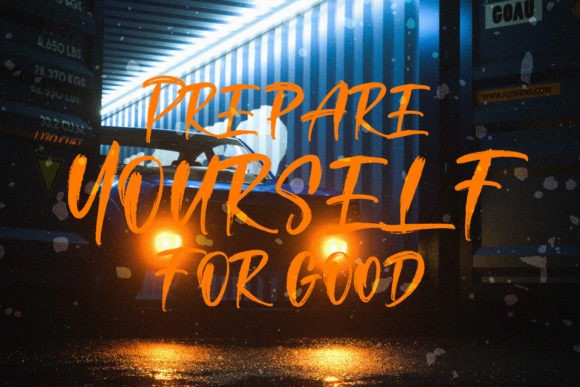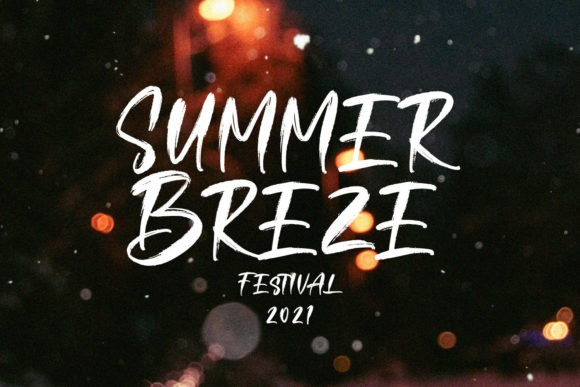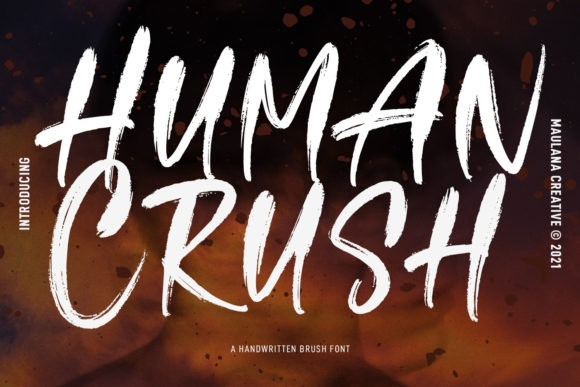
Human Crush Font
Human Crush Brush Font is a cool, brushed and adaptable display font. It is suitable for designs such as t-shirts, sportswear, logos, advertisements, clothing, and more.